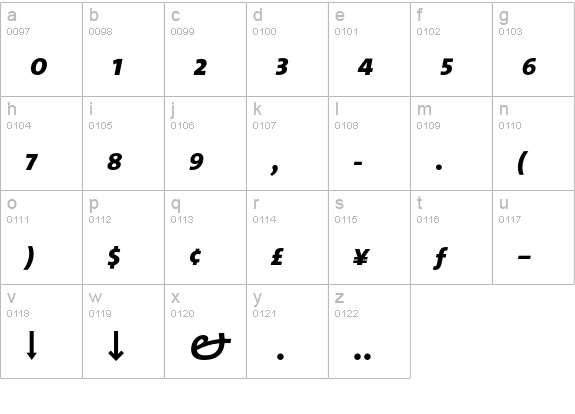
TheSans Bold Expert Italic Font Details
TheSans Bold Expert Italic is a strong, high-contrast, italic variant in the TheSans typeface family \xE2\x80\x94 well suited to headlines, attention-grabbing titles, and strong calls-to-action.
TheSans Bold Expert Italic font is a stunning and versatile typeface that exudes confidence and sophistication. Its bold and italic design adds a touch of elegance and flair to any project or design. With its strong, yet graceful letterforms, TheSans Bold Expert Italic font is perfect for creating eye-catching headlines, striking logos, and captivating marketing materials. This font's expertly crafted design ensures optimal legibility, even at smaller sizes, making it ideal for both print and digital applications. Whether used in editorial layouts, web designs, or branding projects, TheSans Bold Expert Italic font delivers a distinct and memorable aesthetic. One of the most remarkable aspects of TheSans Bold Expert Italic font is that it is freely available to download at FontsMarket.com. This means that designers, creatives, and enthusiasts can easily access and utilize this exceptional typeface without any cost. Its availability on FontsMarket.com ensures that everyone can enjoy the benefits of this high-quality font, regardless of their budget or resources. TheSans Bold Expert Italic font is a true gem in the world of typography, combining style, versatility, and accessibility. Its bold and italic design, along with its legibility and availability, make it a must-have for any design project. Whether used for personal or commercial purposes, this font is sure to elevate your designs and leave a lasting impression.